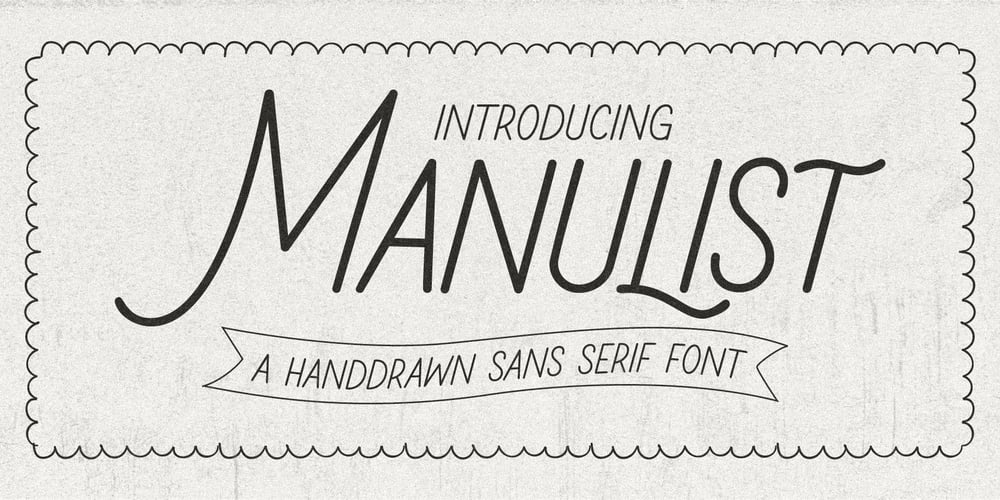
Manualist
Manualist font
Manualist Font Family was designed by Gha Arizal and published by Invasi Studio. Manualist contains 1 styles and family package options. Meet Manulist, your new go-to font for a natural hand-drawn look full of charm! With its all-caps style and big uppercase letters, this font exudes a classic elegant look. But wait, there’s more! Manulist also comes with elegant alternates, adding a touch of sophistication to your designs.And that’s not all – this font supports multilingual characters, so you can spread the fun and creativity in any language you desire. Plus, every character in Manulist has a delightful imperfect shape, giving your designs a unique and organic feel. It’s like having your own personal hand-drawn masterpiece in every letter!